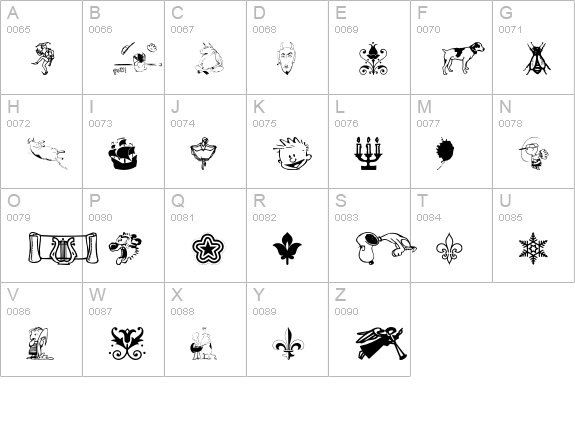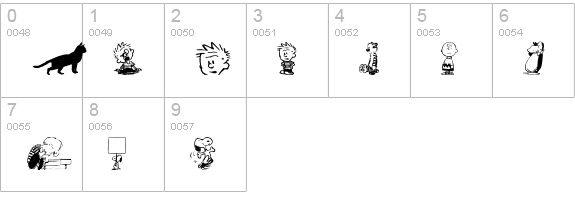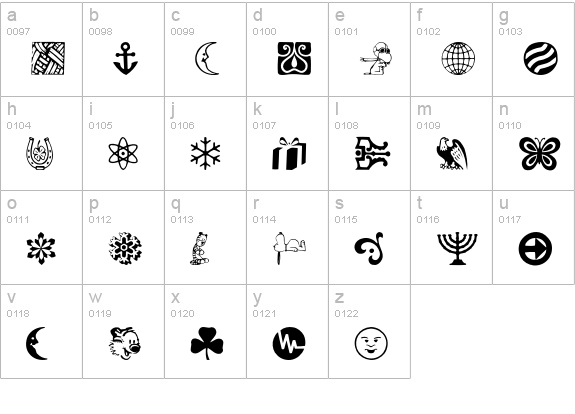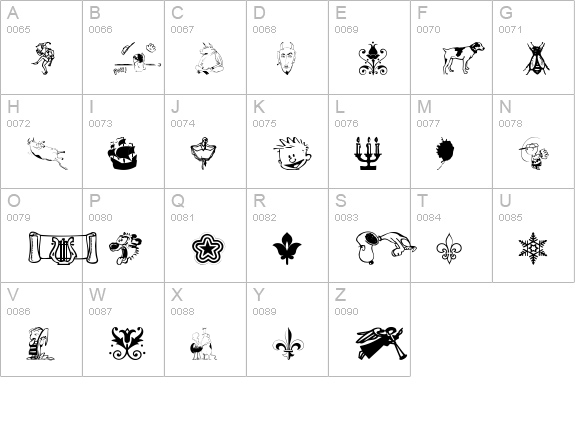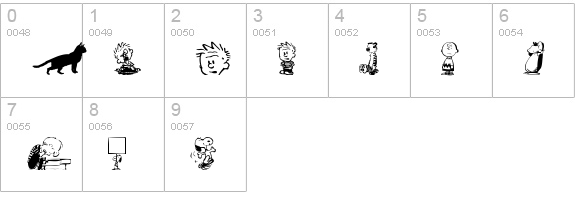
DavysOtherDingbats Font Details
Introducing DavysOtherDingbats font, a whimsical and creative typeface perfect for adding a touch of playfulness to your designs. This unique font features a collection of charming dingbats and symbols that are sure to catch the eye and spark imagination. Whether you're working on a fun project, creating invitations, or designing greeting cards, DavysOtherDingbats font is the perfect choice to bring a touch of whimsy to your work. Best of all, DavysOtherDingbats font is completely free to download at FontsMarket.com. That's right, you can easily access this delightful font and elevate your designs without any cost. Don't miss out on the opportunity to add a touch of creativity to your projects with DavysOtherDingbats font - get your free download today!